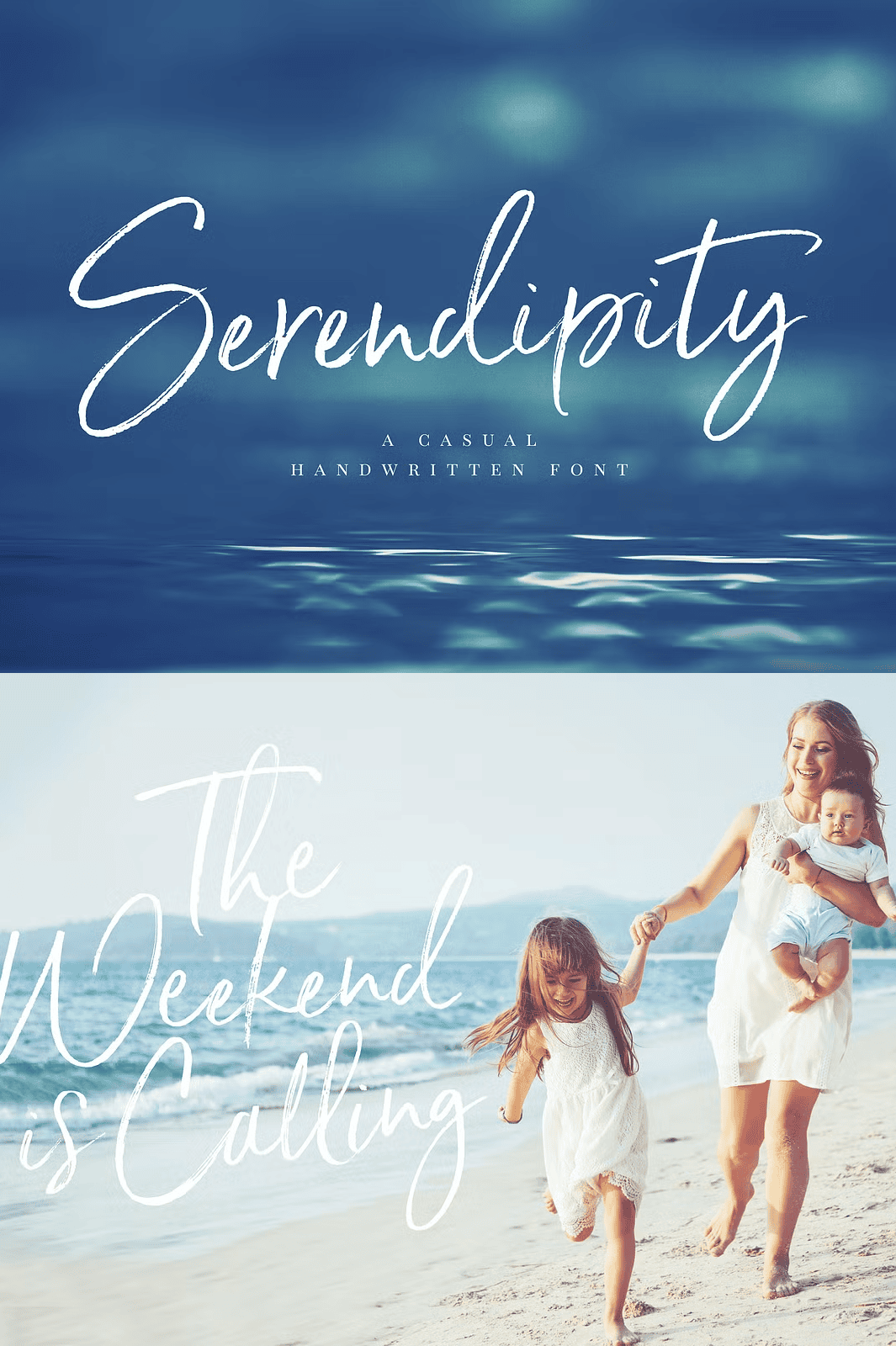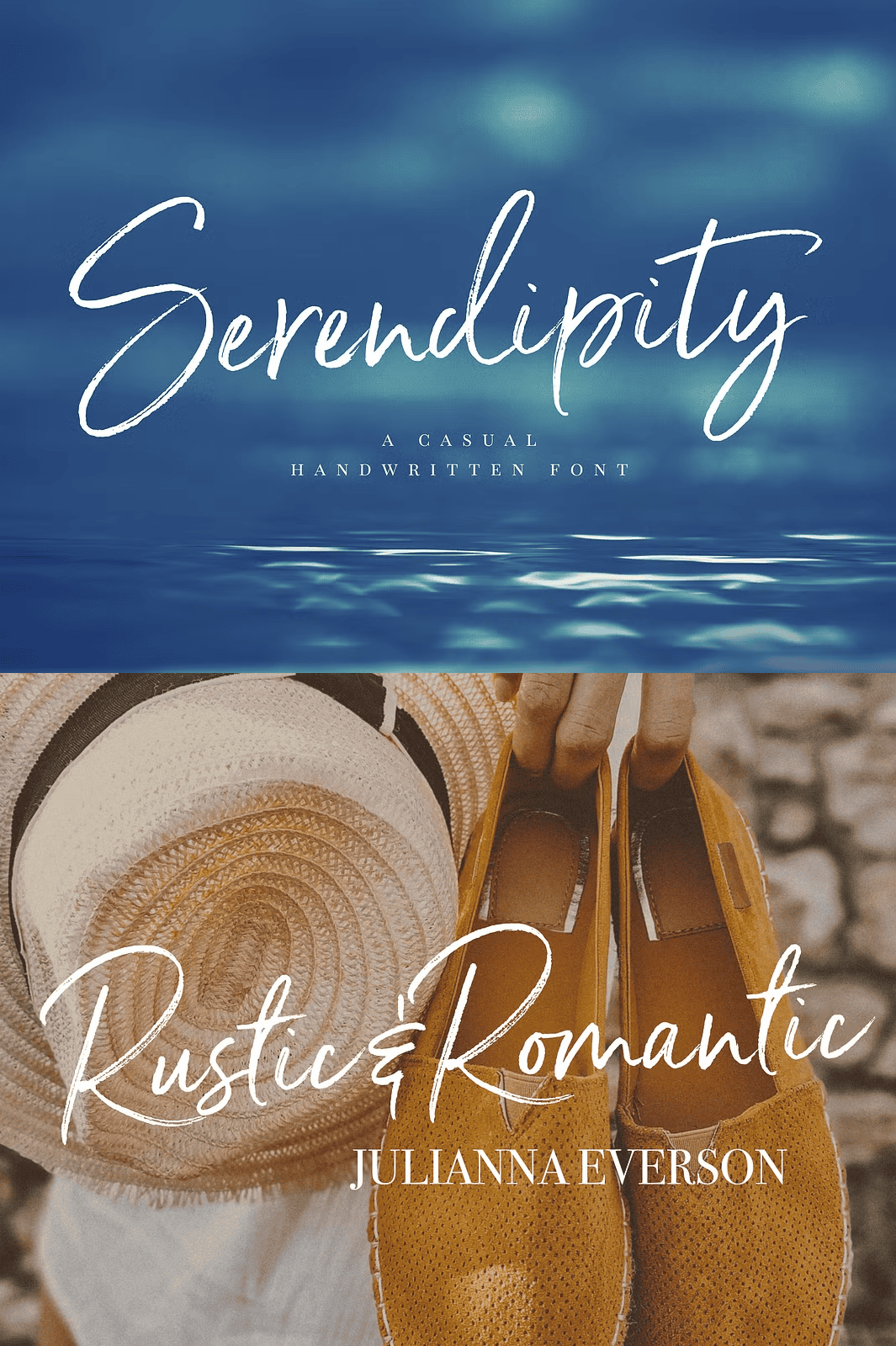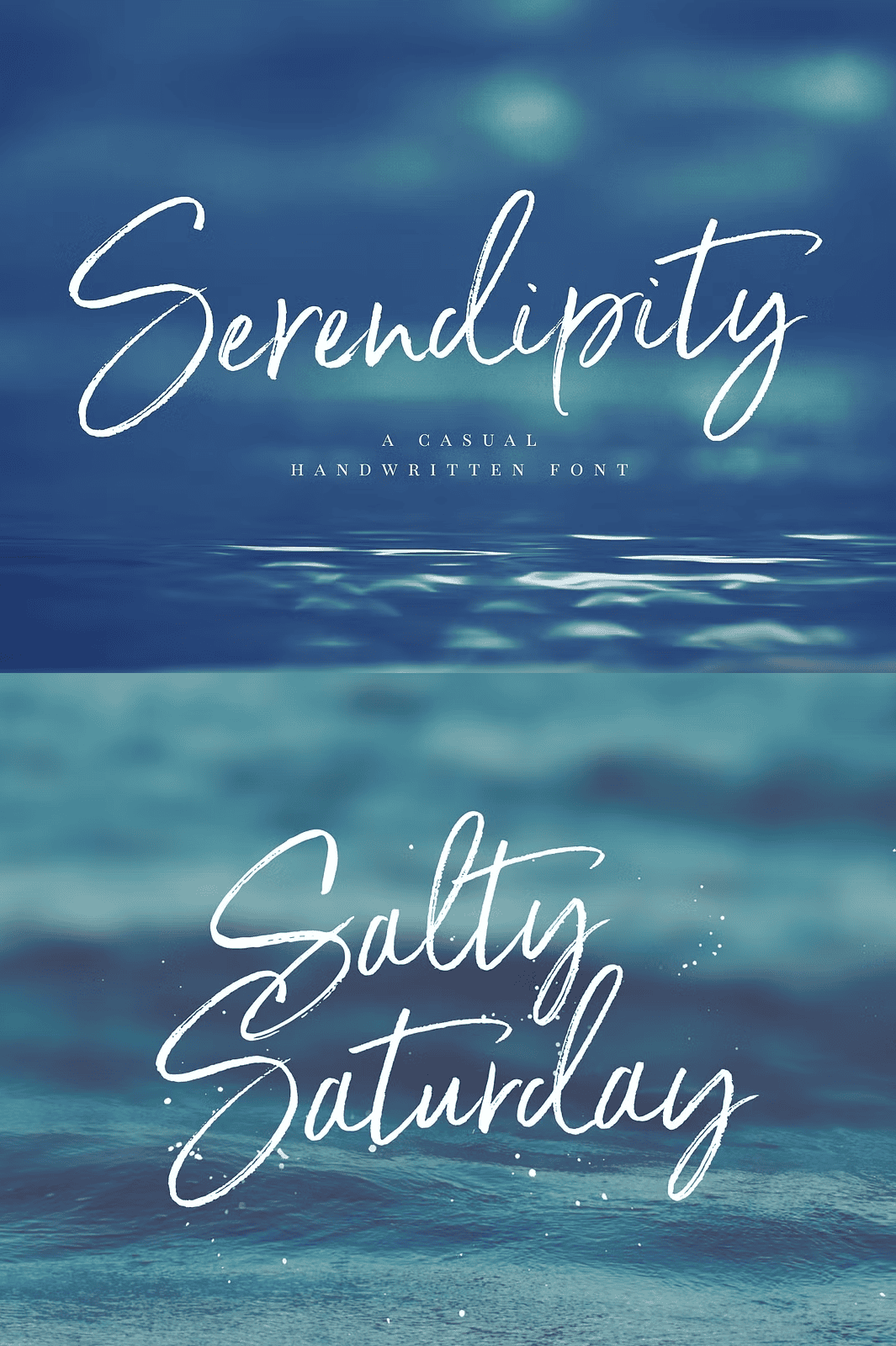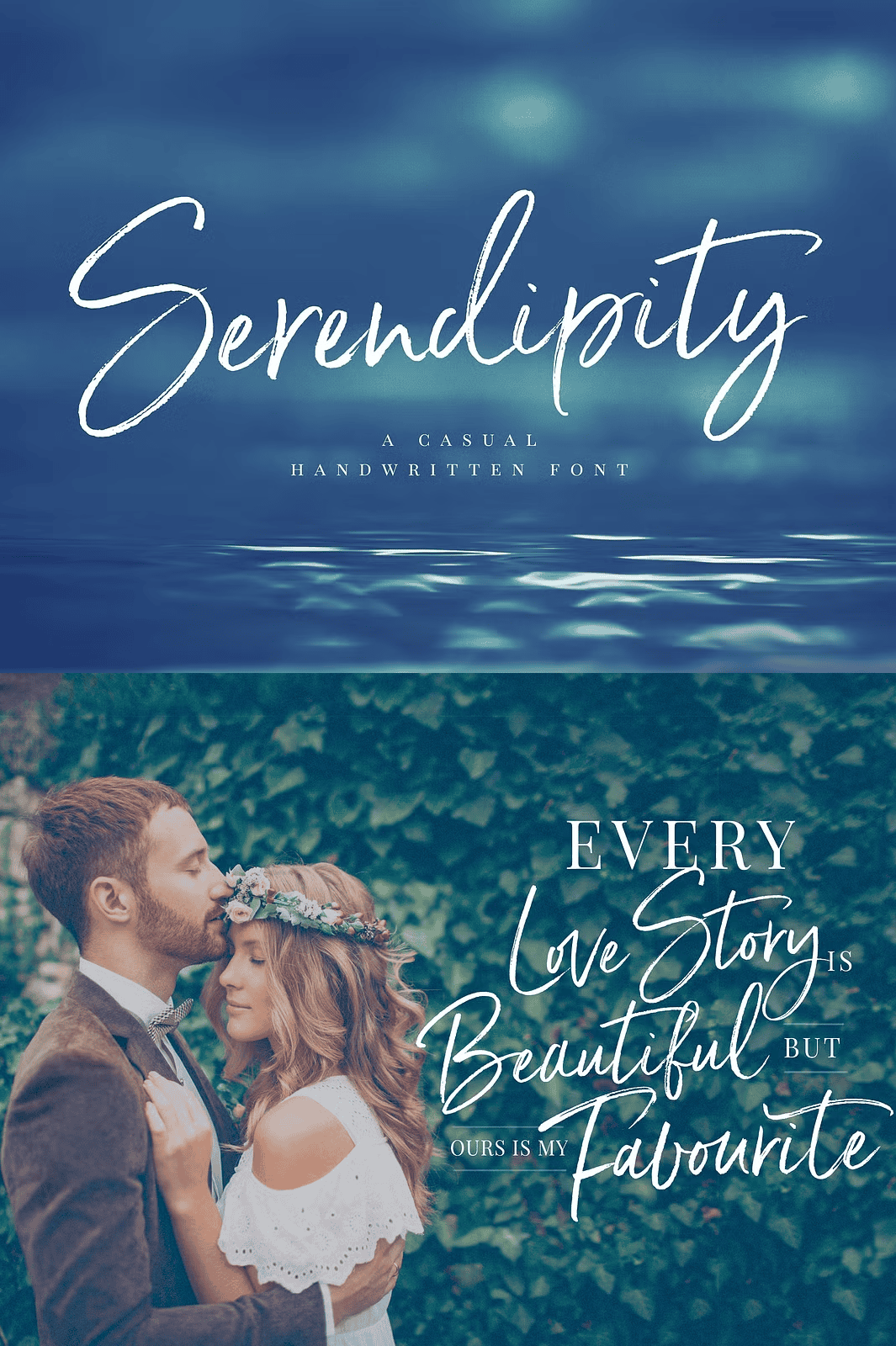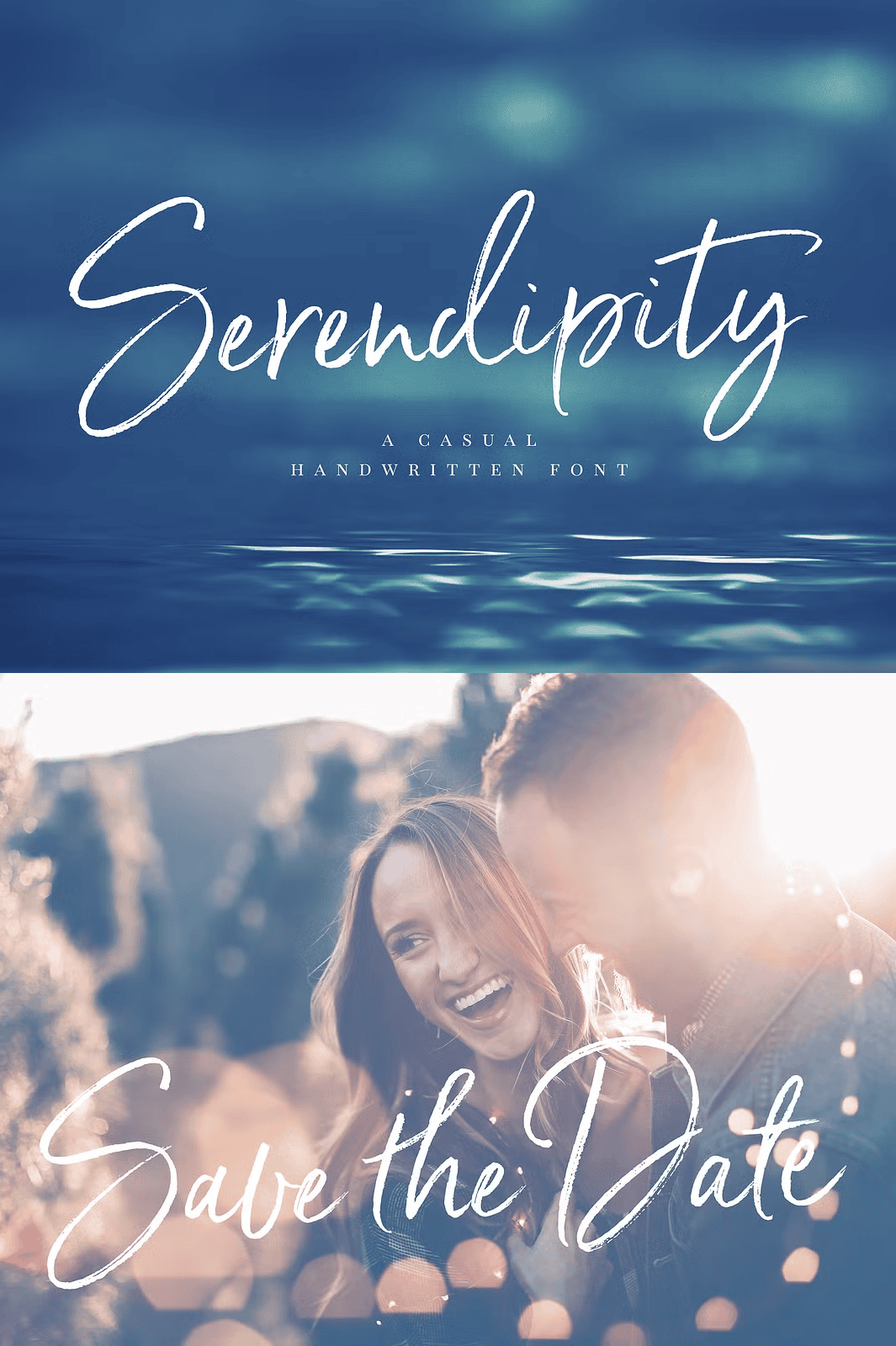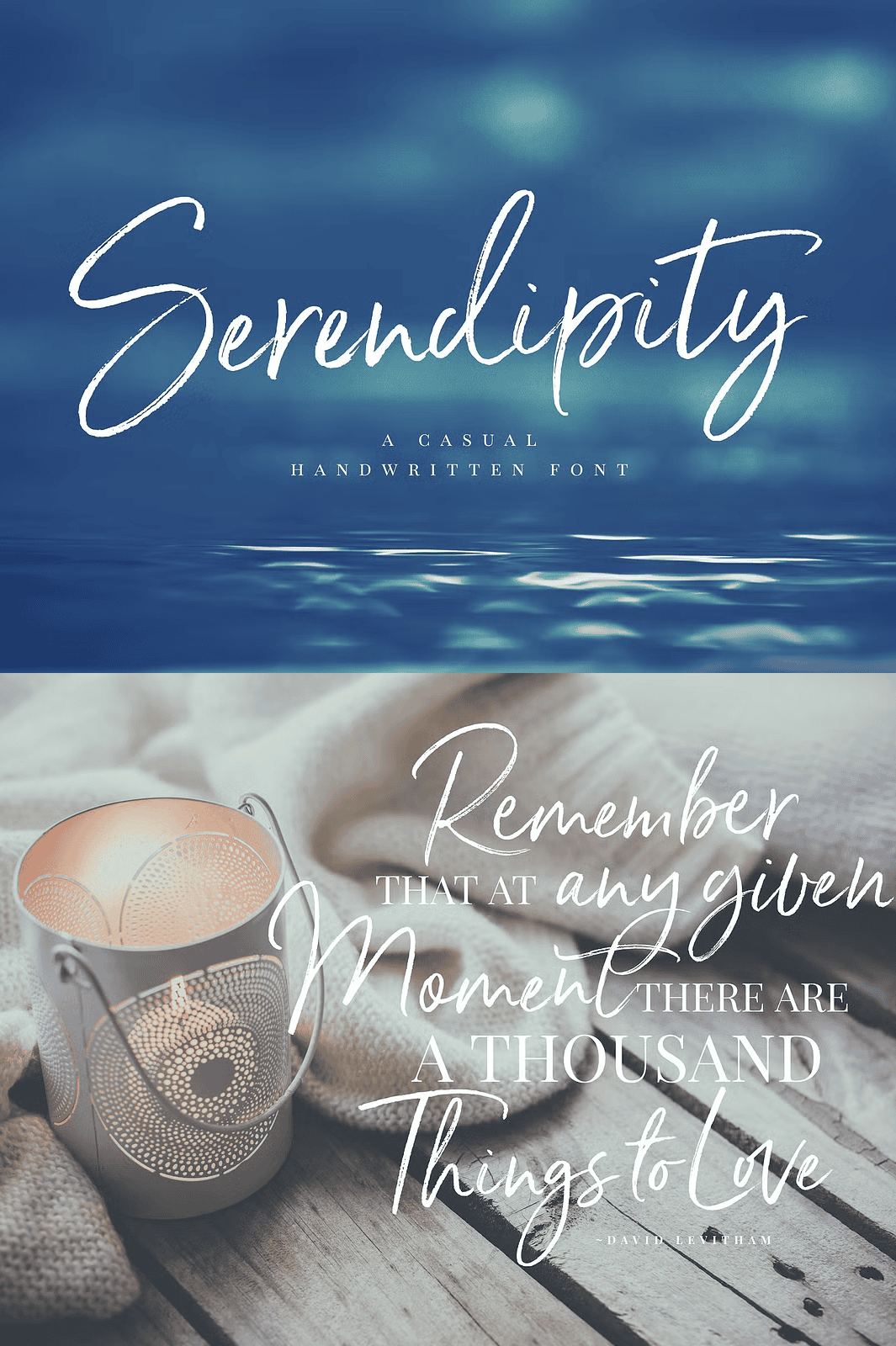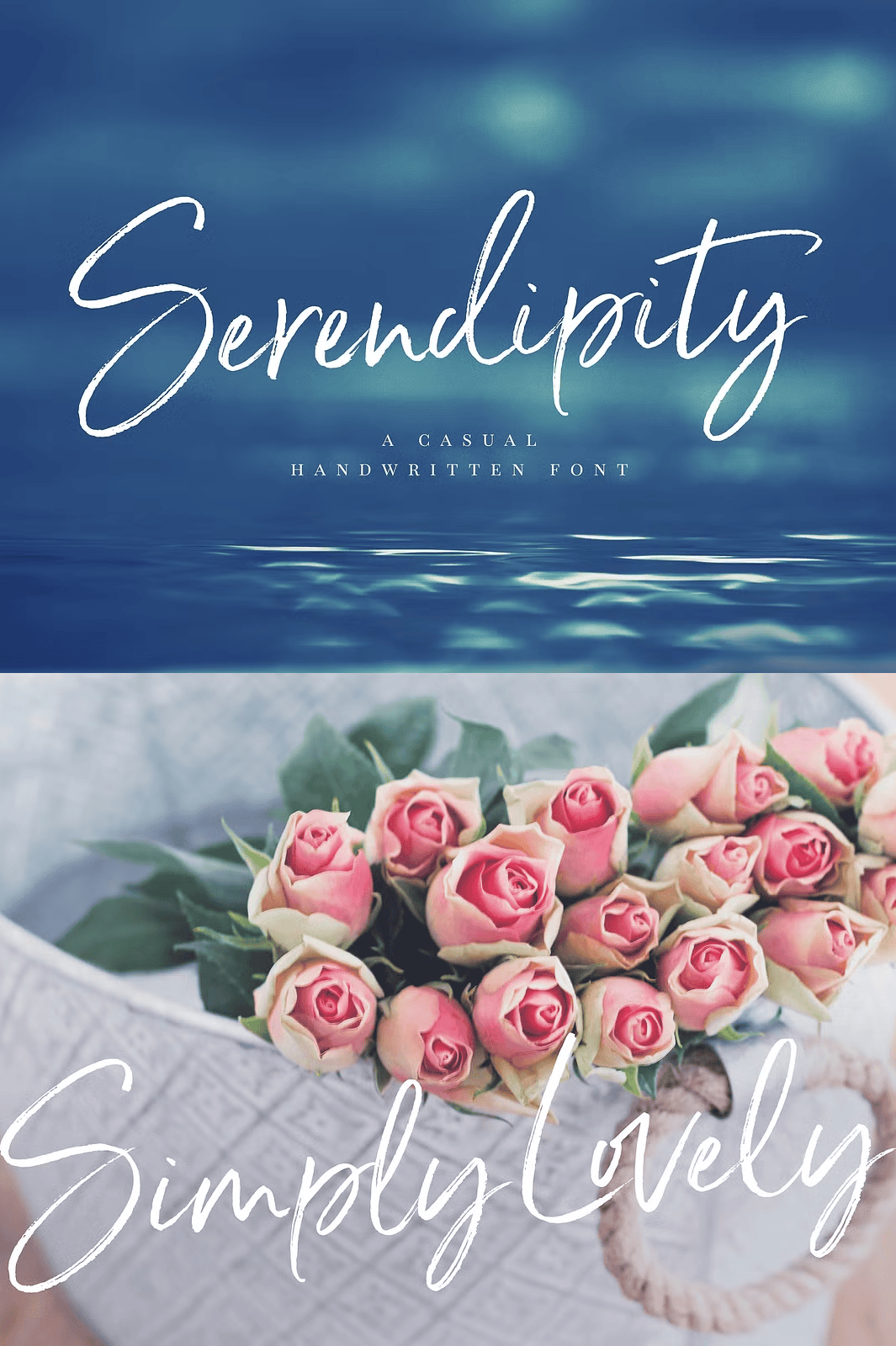
Serendipity Handwritten Font
Introducing Serendipity: A Handcrafted Brush Script That Feels Like Destiny
Meet Serendipity not just a font, but a revelation in typographic design. Born as the elegant cousin of the beloved Saturday Script, Serendipity brings a unique blend of grace, expressiveness, and playful sophistication to your creative projects. Each stroke is meticulously crafted to mimic the natural flow of a hand-held brush, delivering a dynamic, organic feel that stands out in any design.
Unlike ordinary fonts, Serendipity doesn’t just write words it breathes personality into them. Whether you’re crafting a heartfelt wedding invitation or designing a bold brand identity, this brush script adapts to your voice with effortless charm and unmistakable style.
Why Serendipity Is a Game-Changer for Designers & Creators
Designed for those who demand creativity without limits, Serendipity gives you the tools to shape every word exactly how you envision it. With a rich set of built-in typographic features, you’re never limited by a one-size-fits-all approach. This is typography that listens, responds, and evolves with your ideas.
• Extensive Alternates: Two sets of alternate lowercase letters, one set of alternate uppercase letters, and a dedicated set of double-letter ligatures all ready to be applied with a single click.
Where Serendipity Shines: Top Applications for Creative Excellence
Whether you’re creating something intimate or monumental, Serendipity elevates every project with its expressive character and emotional resonance. Here’s where you’ll see it make the most impact:
• Wedding Invitations & Stationery: Infuse every line with emotion and sophistication. Make your guests feel welcomed with personalized, hand-lettered elegance.
• Branding & Logo Design: Craft unique identities that convey warmth, authenticity, and creative confidence.
• Product Packaging & Labels: Add a touch of luxury that feels handmade and exclusive, even in mass production.
• Social Media Content & Ads: Grab attention with bold, expressive headlines that stand out in crowded feeds.
• Photography & Digital Art: Apply elegant overlays, captions, or watermarks with a natural, artistic feel.
• Blog Headers & Newsletter Design: Bring visual storytelling to life with fonts that speak directly to the reader’s heart.
Customize Your Masterpiece — Let Serendipity Reflect Your Creative Voice
What makes Serendipity truly magical is its endless variability. One word can be written in thousands of ways, thanks to its built-in alternates and ligatures. Experiment with different styles delicate and romantic, bold and dramatic, playful and whimsical and find the version that matches your mood and vision.
Use the Stylistic Alternates feature to switch between refined and bold letterforms. Enable Ligatures to create smooth, natural transitions between letters, eliminating awkward gaps and enhancing the flow of your text.